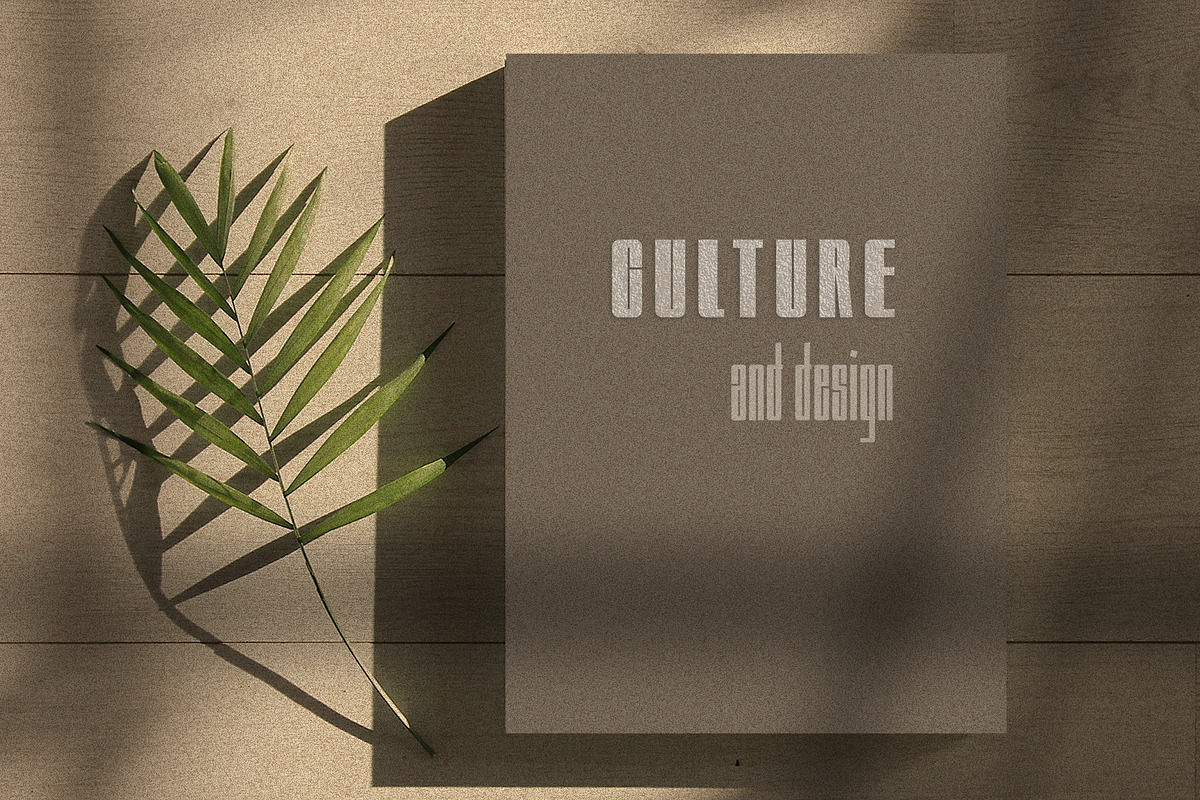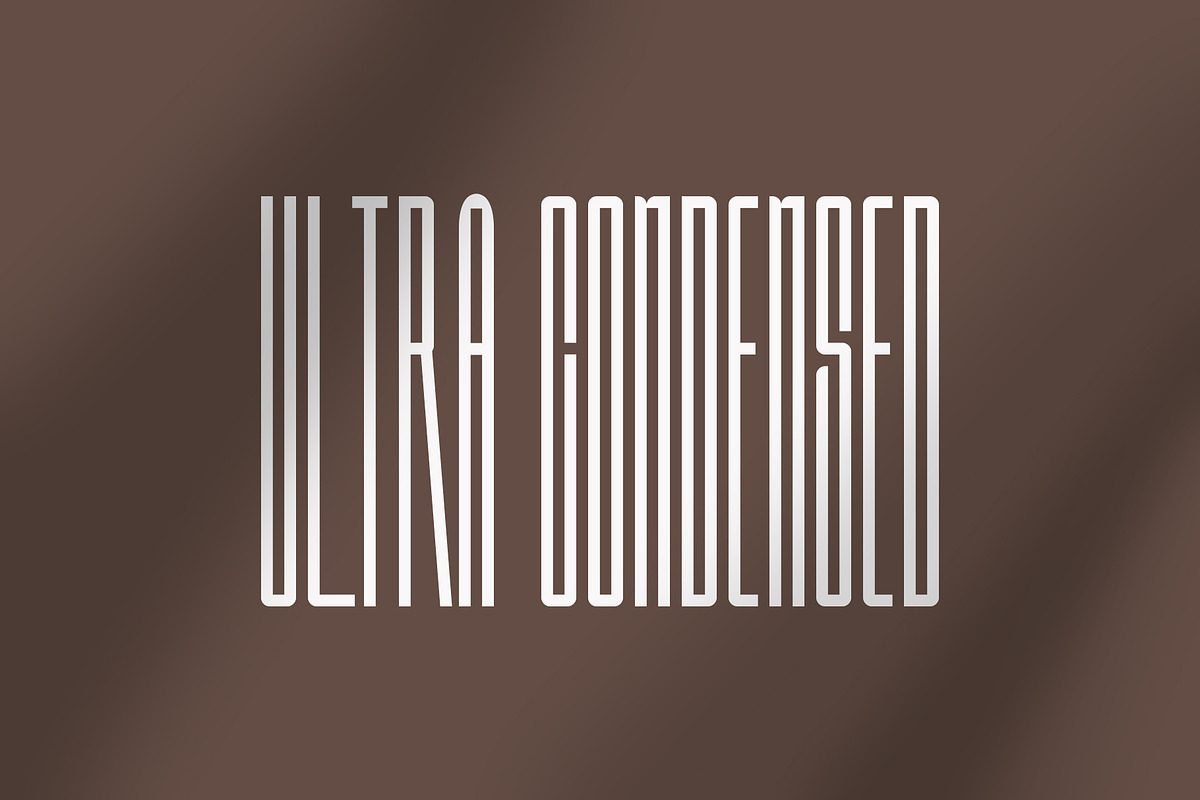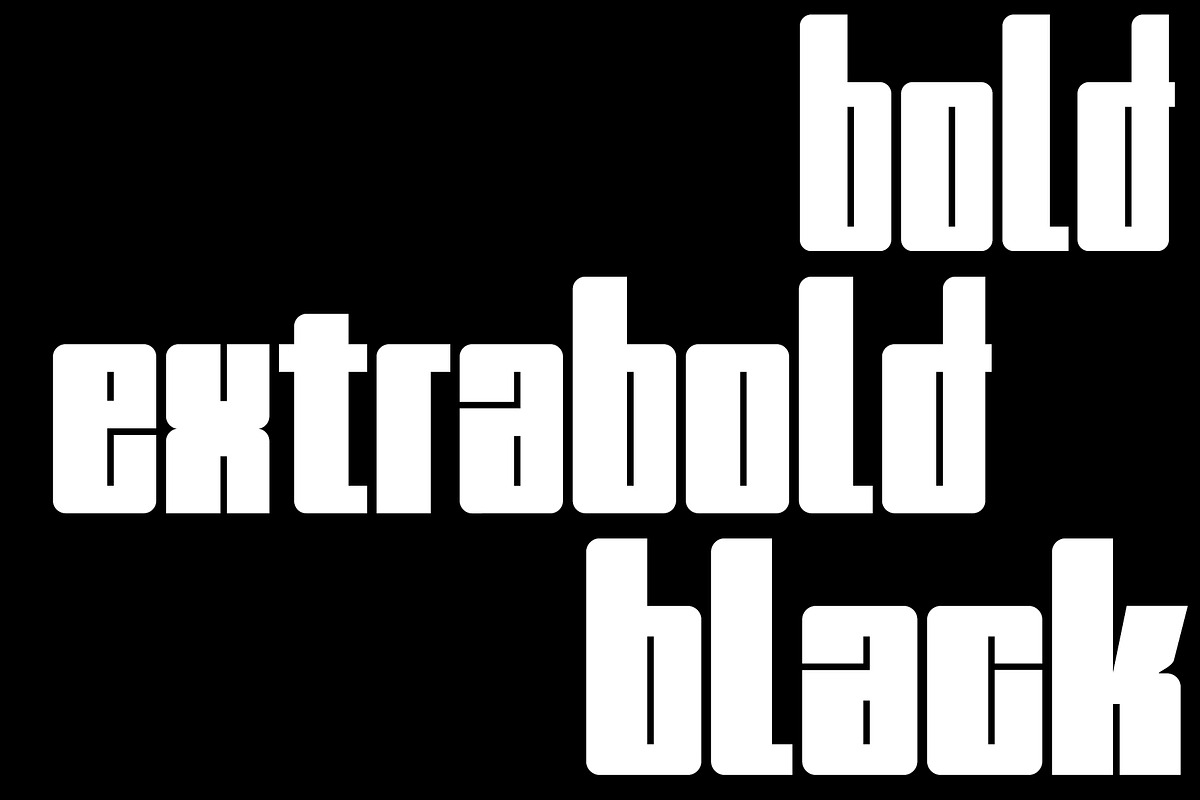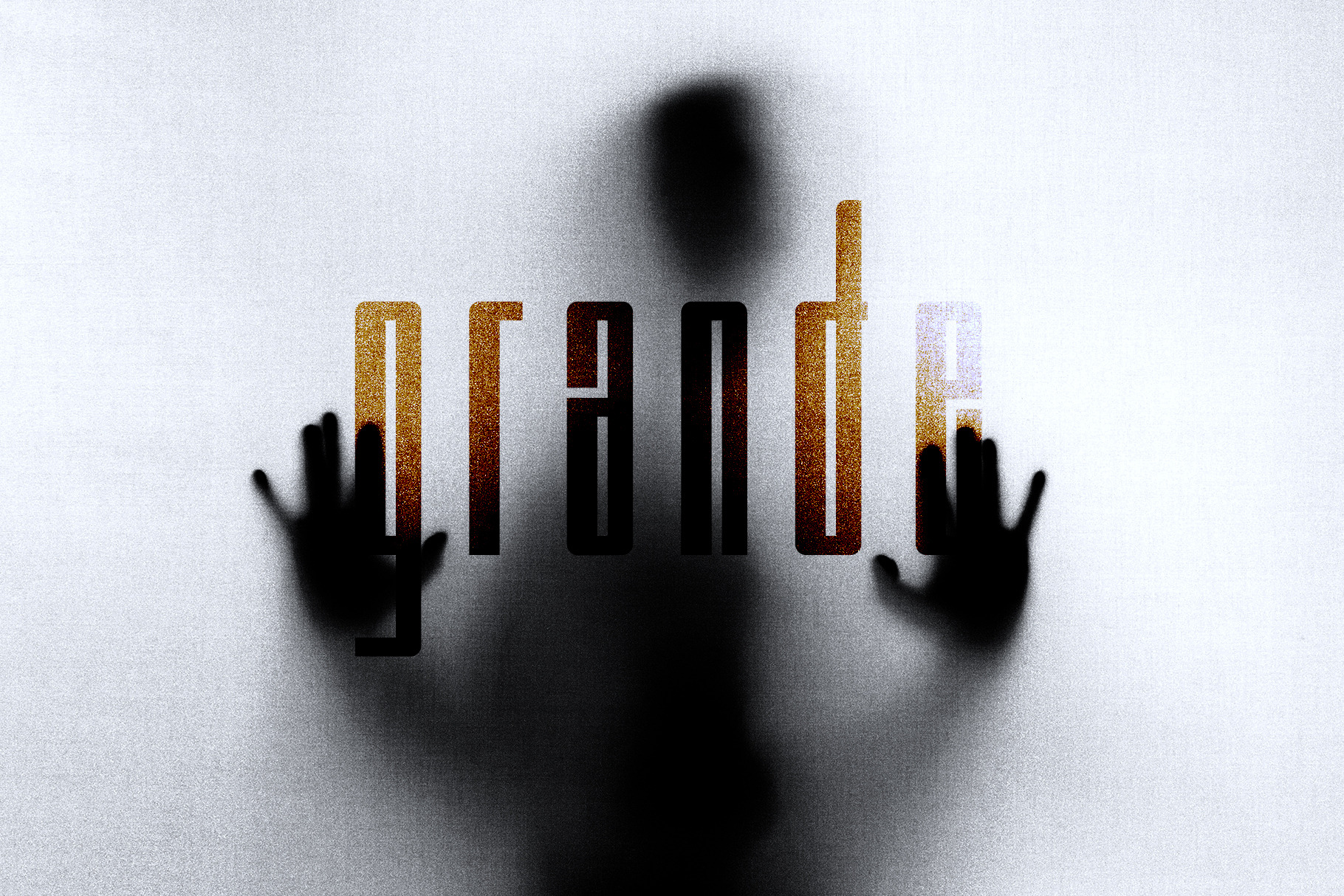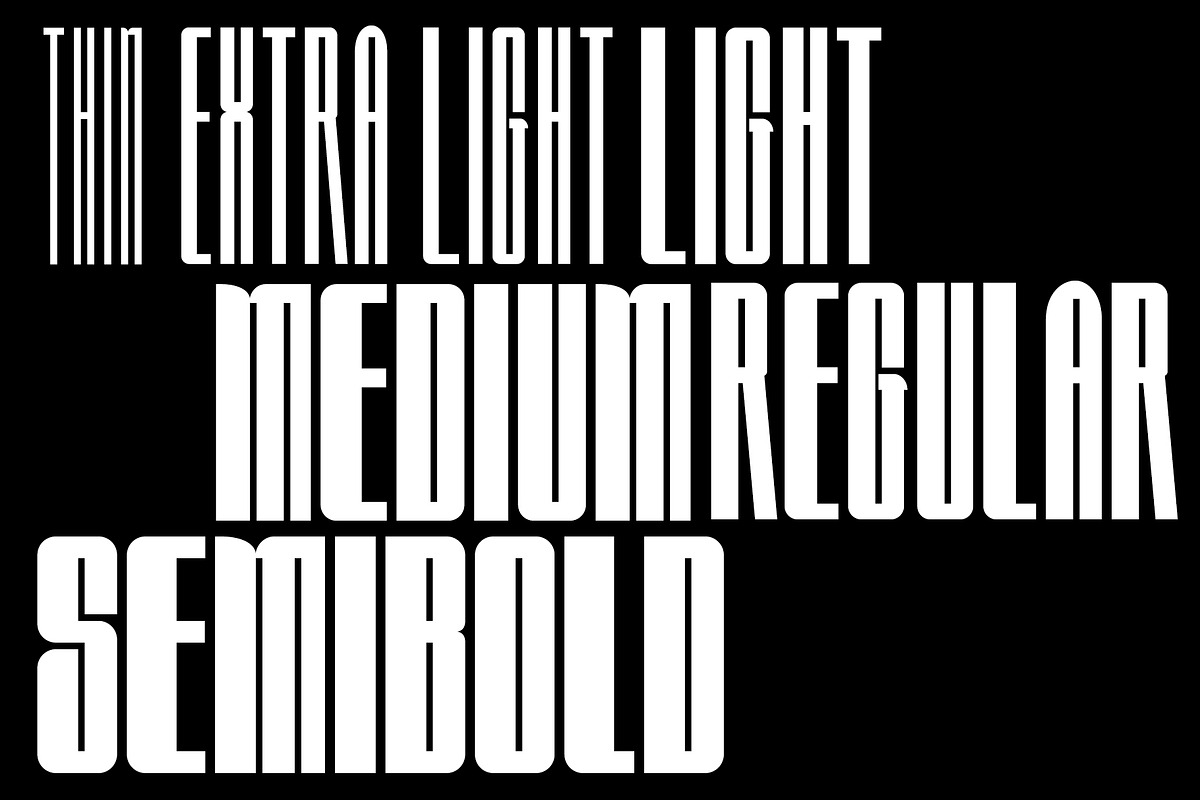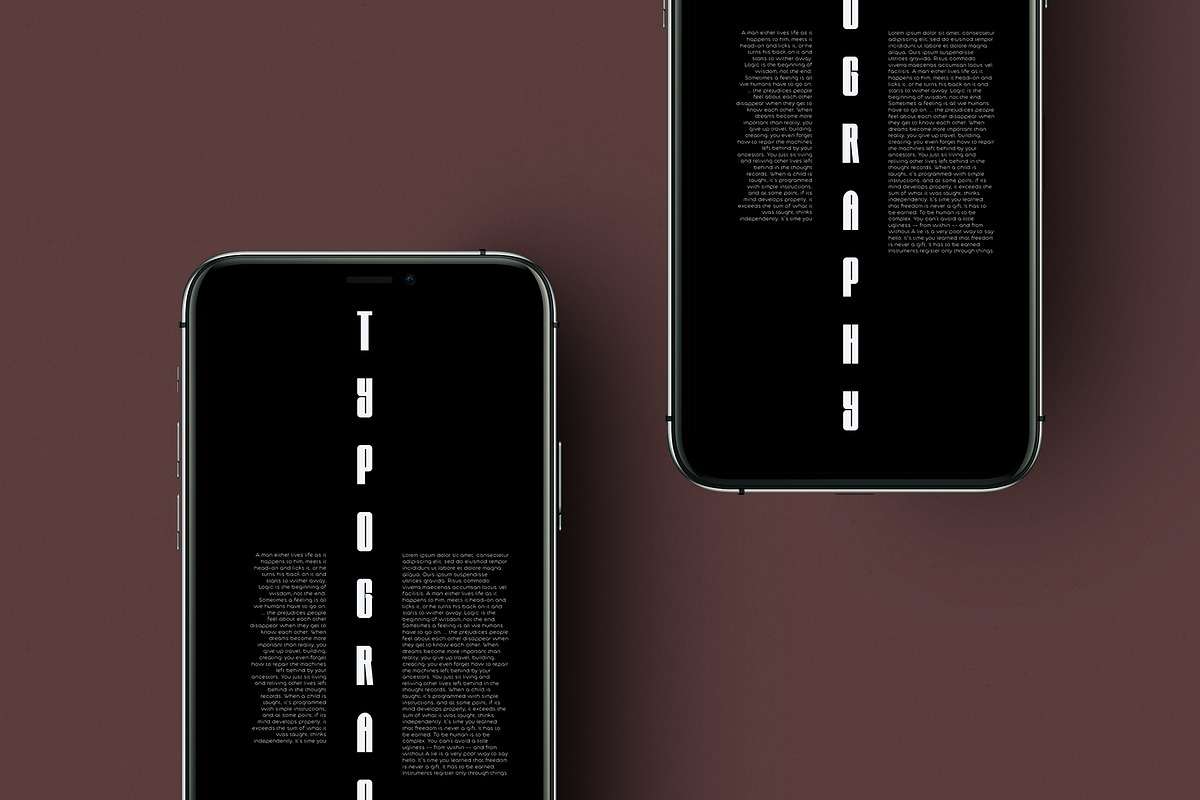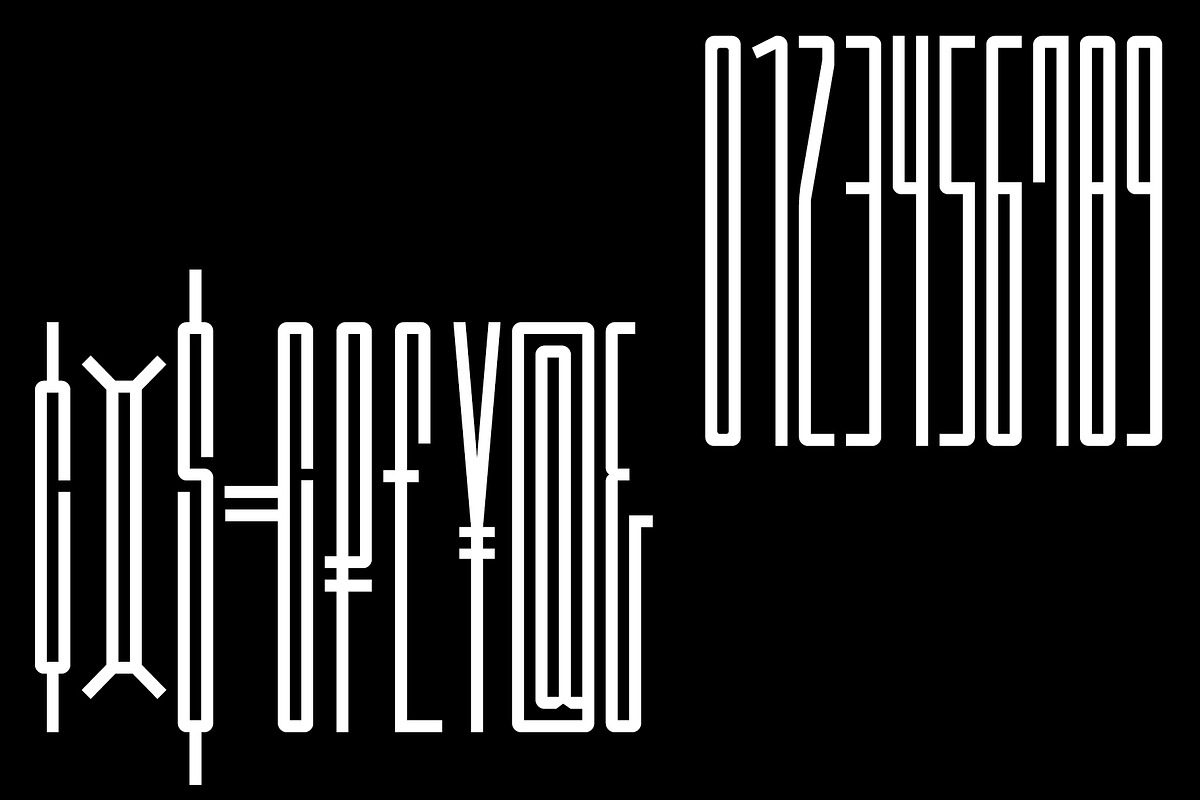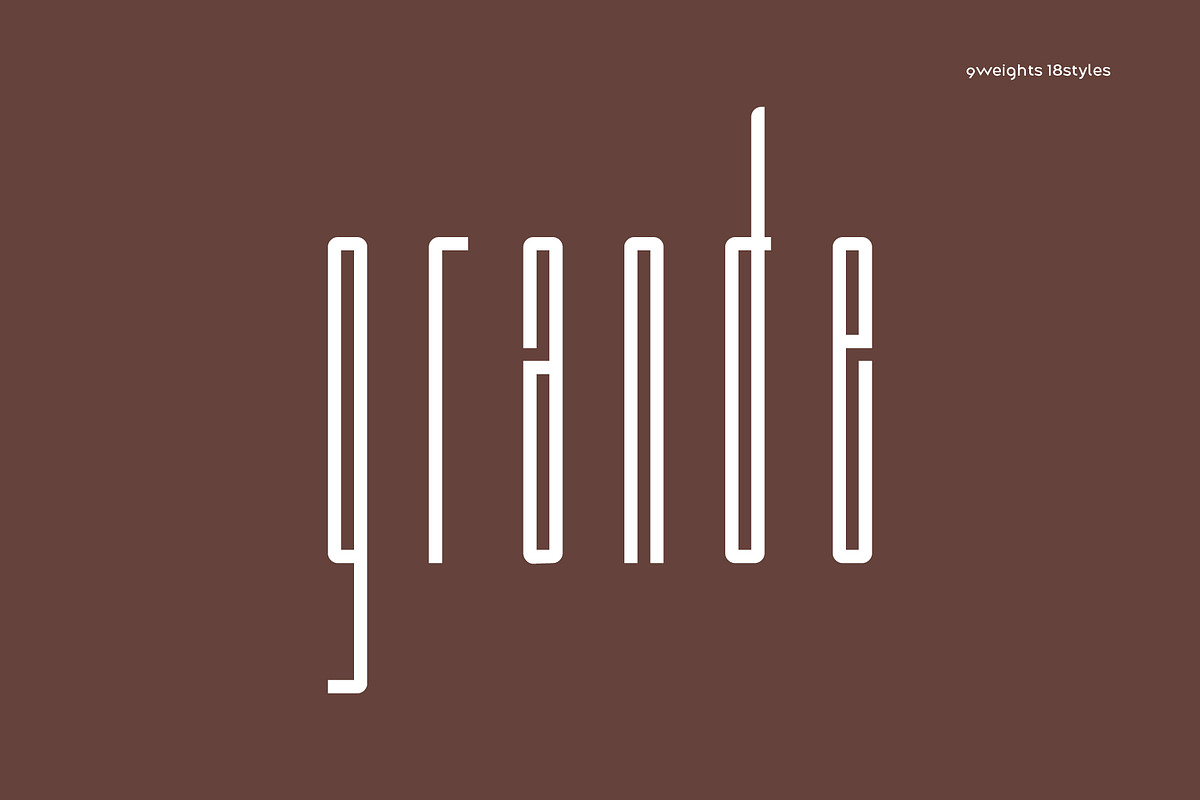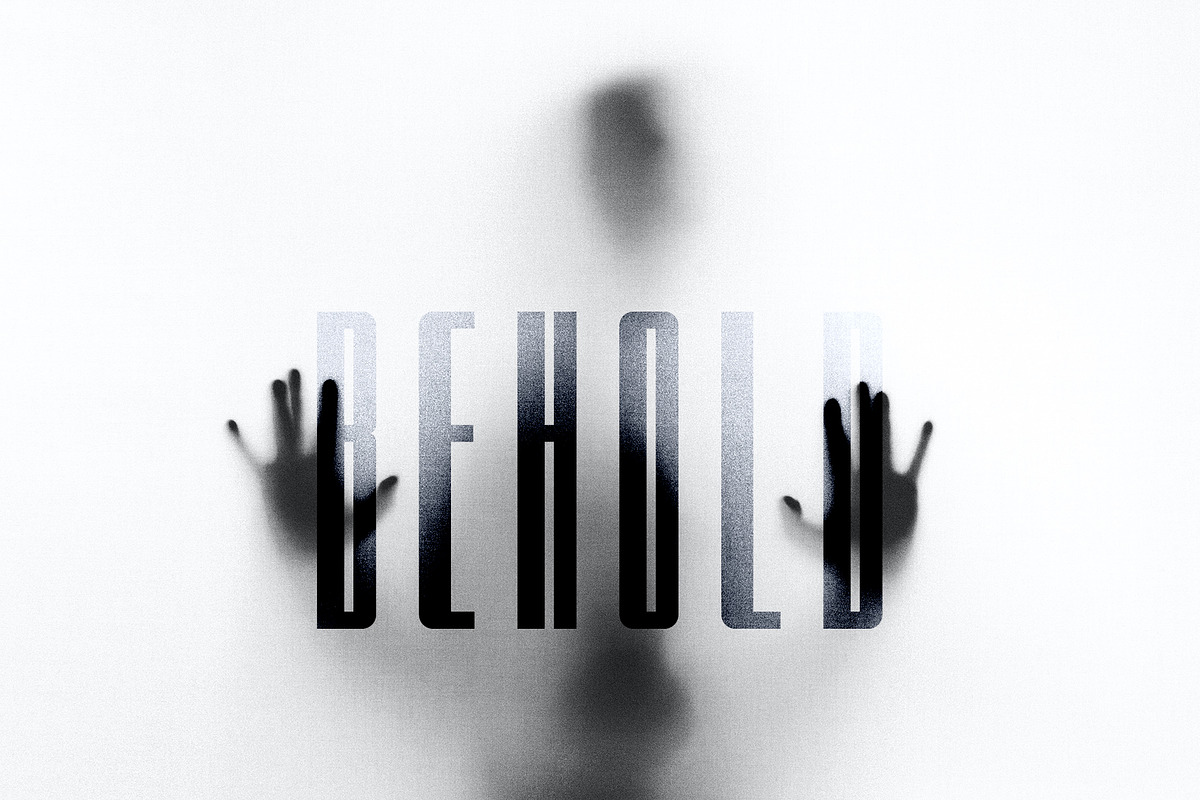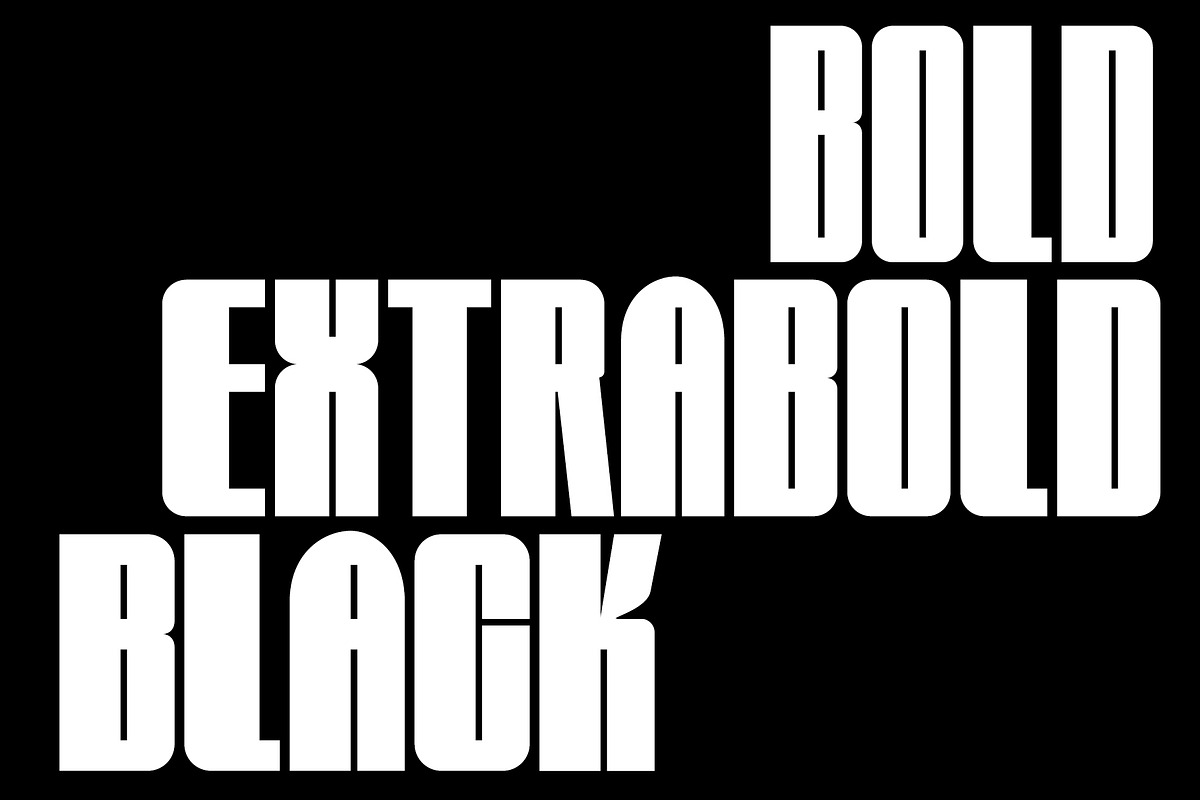
Along Sans Grande Font Family
Along Sans Grande is an so ultra condensed sans serif font family developed based on the typeface styles of the Along Sans Geometric Font Family.
In the case of the black weight with the largest change in the size of the stem, the size is 180:140:100, respectively.
Of course, the thin weight style has the same proportion of stem size.
And, some Glyphs that need to support the stem alone remain a size 222 for Black Weight.
These interpolation rules are sufficient to complement the rhythm and readability of the whole family.
This family is perfect for special titling works, logo designs, and cool showcases.
- 9 weights, 18 styles
- 454 glyphs
- Oldstyle Figures
- Fractions